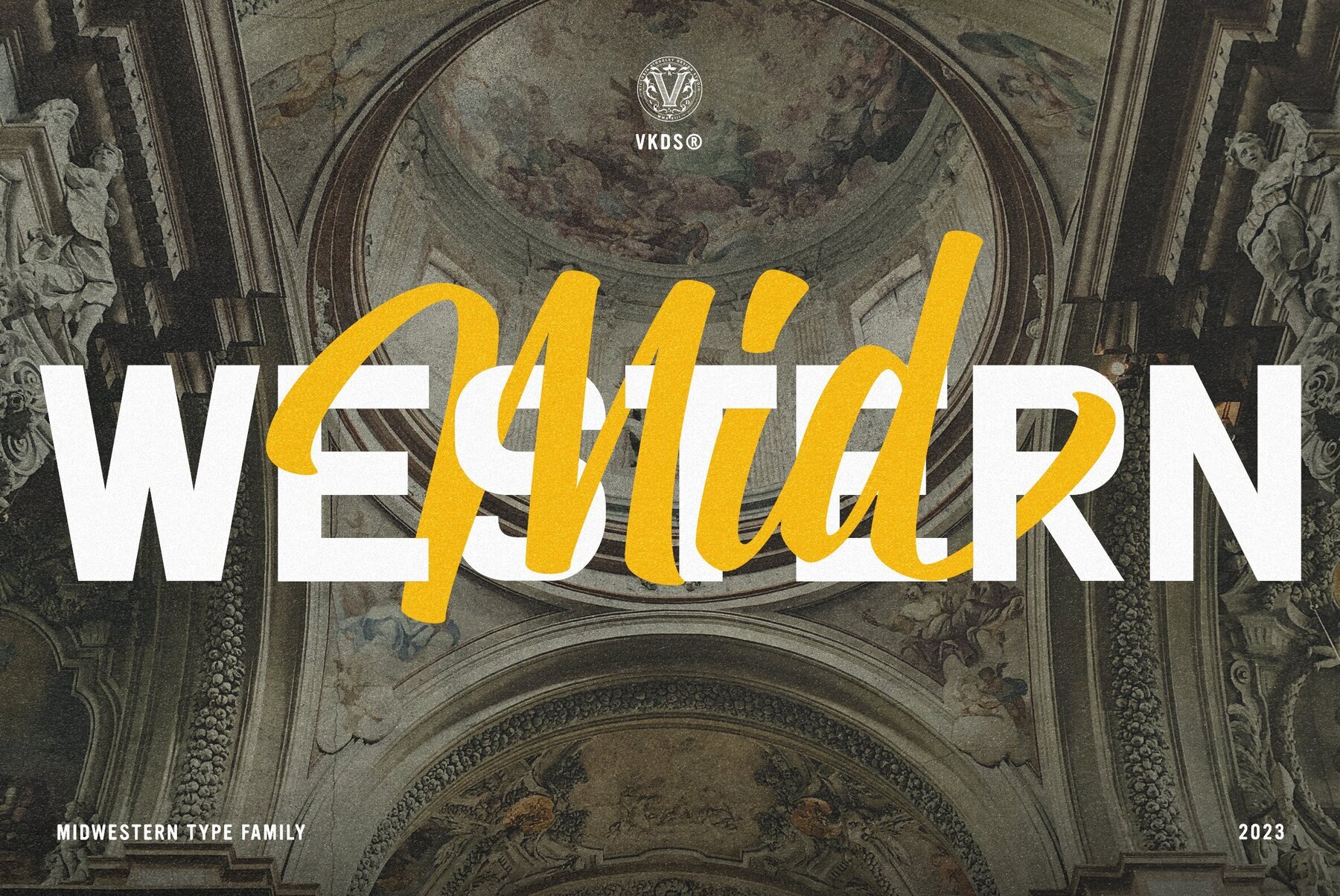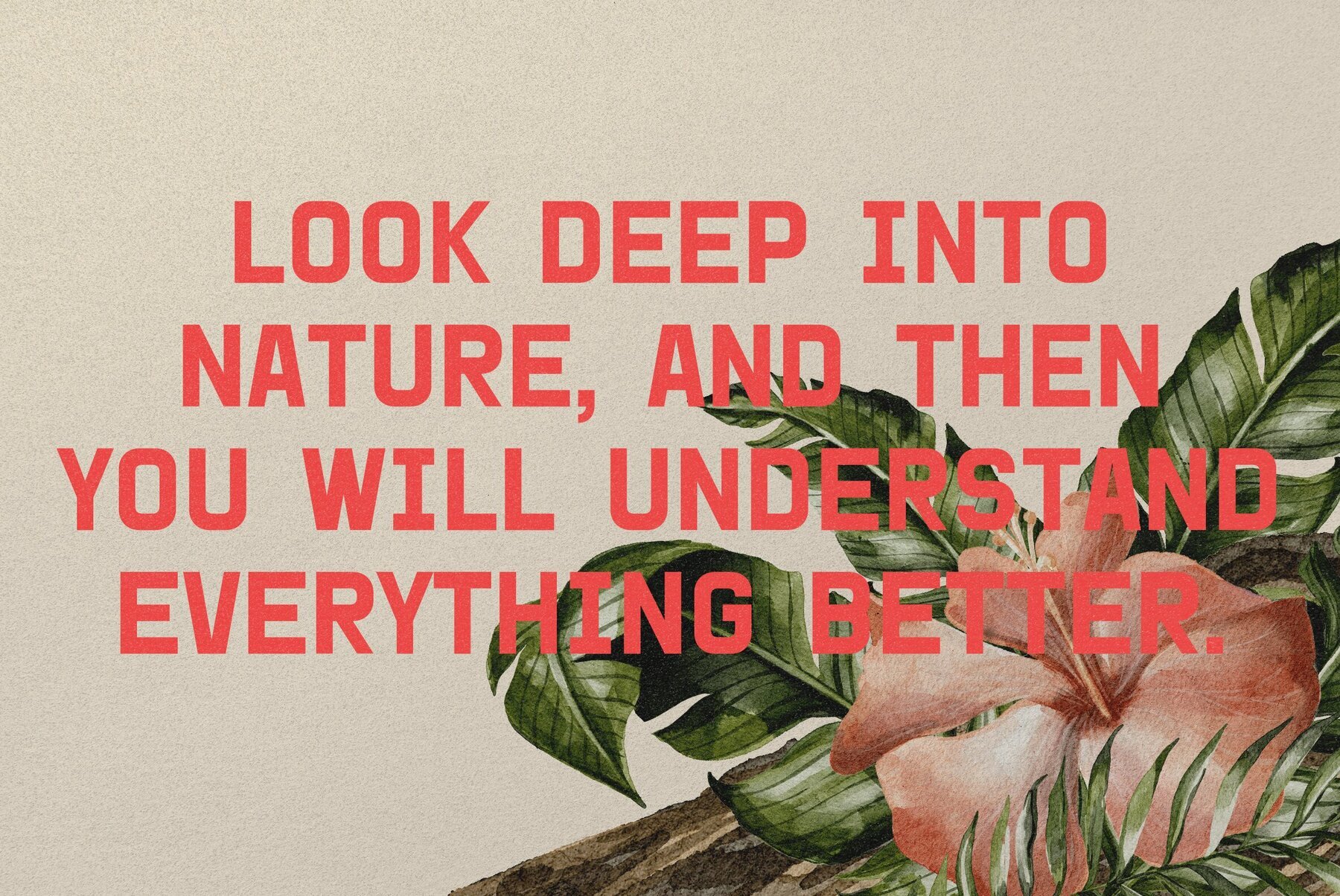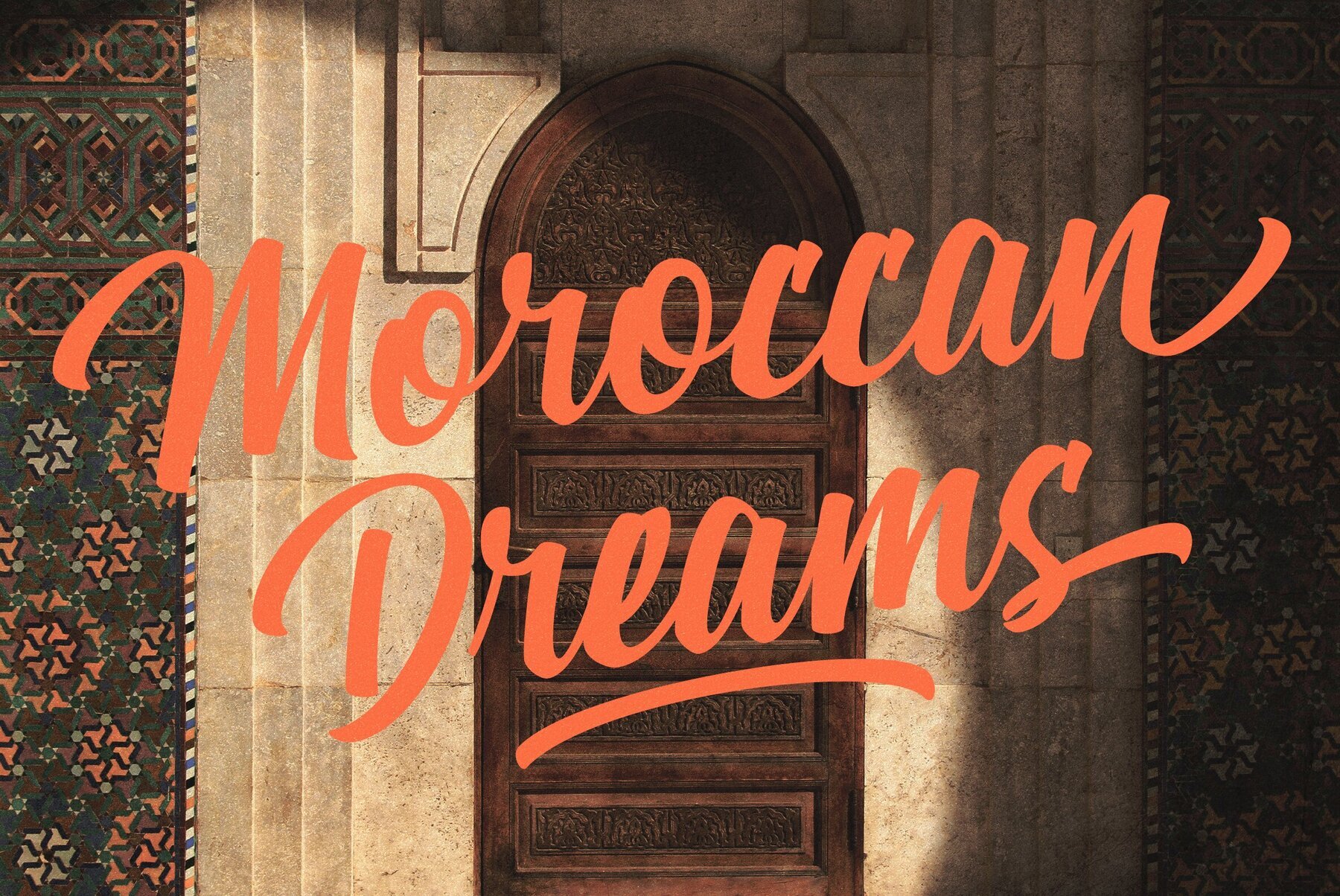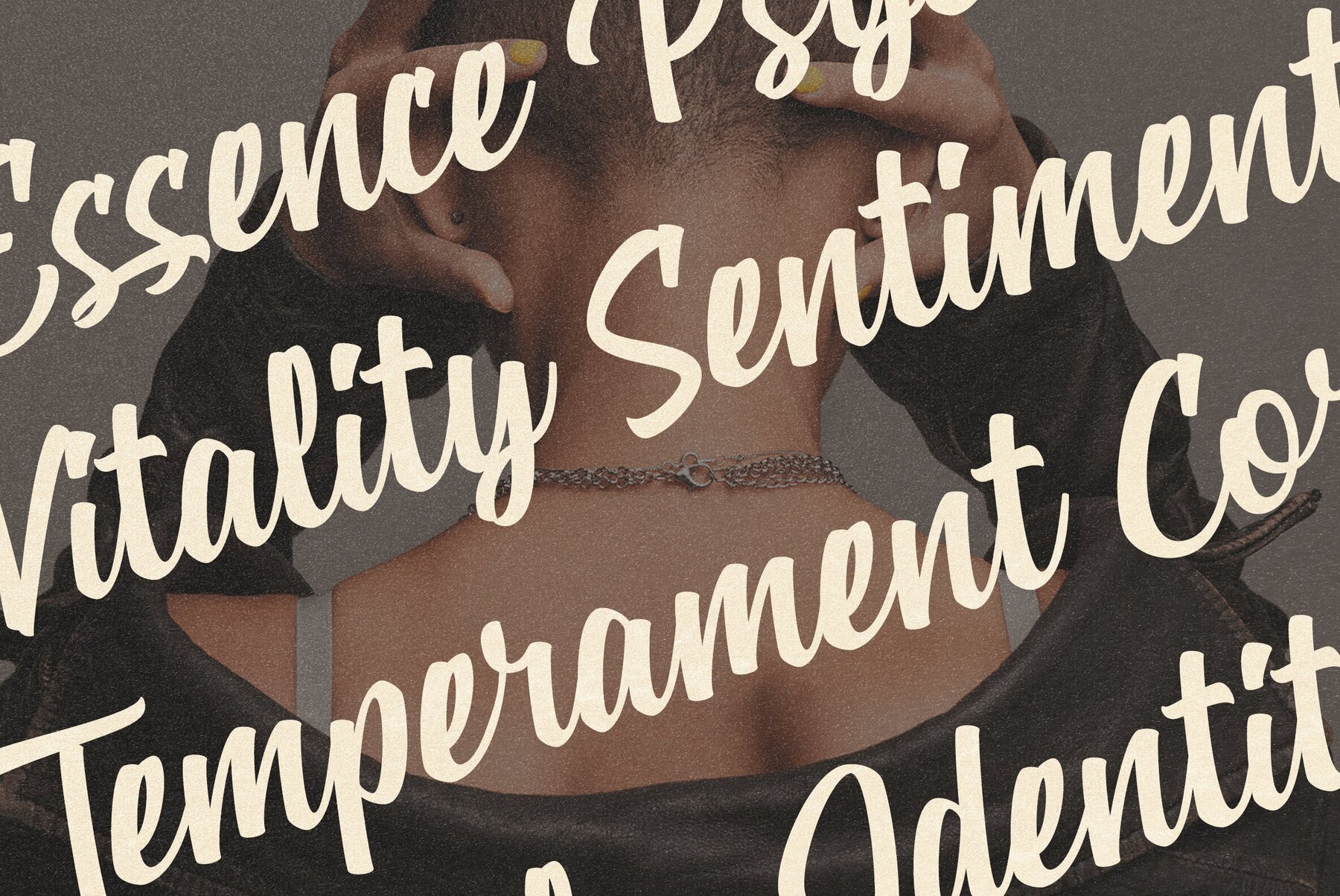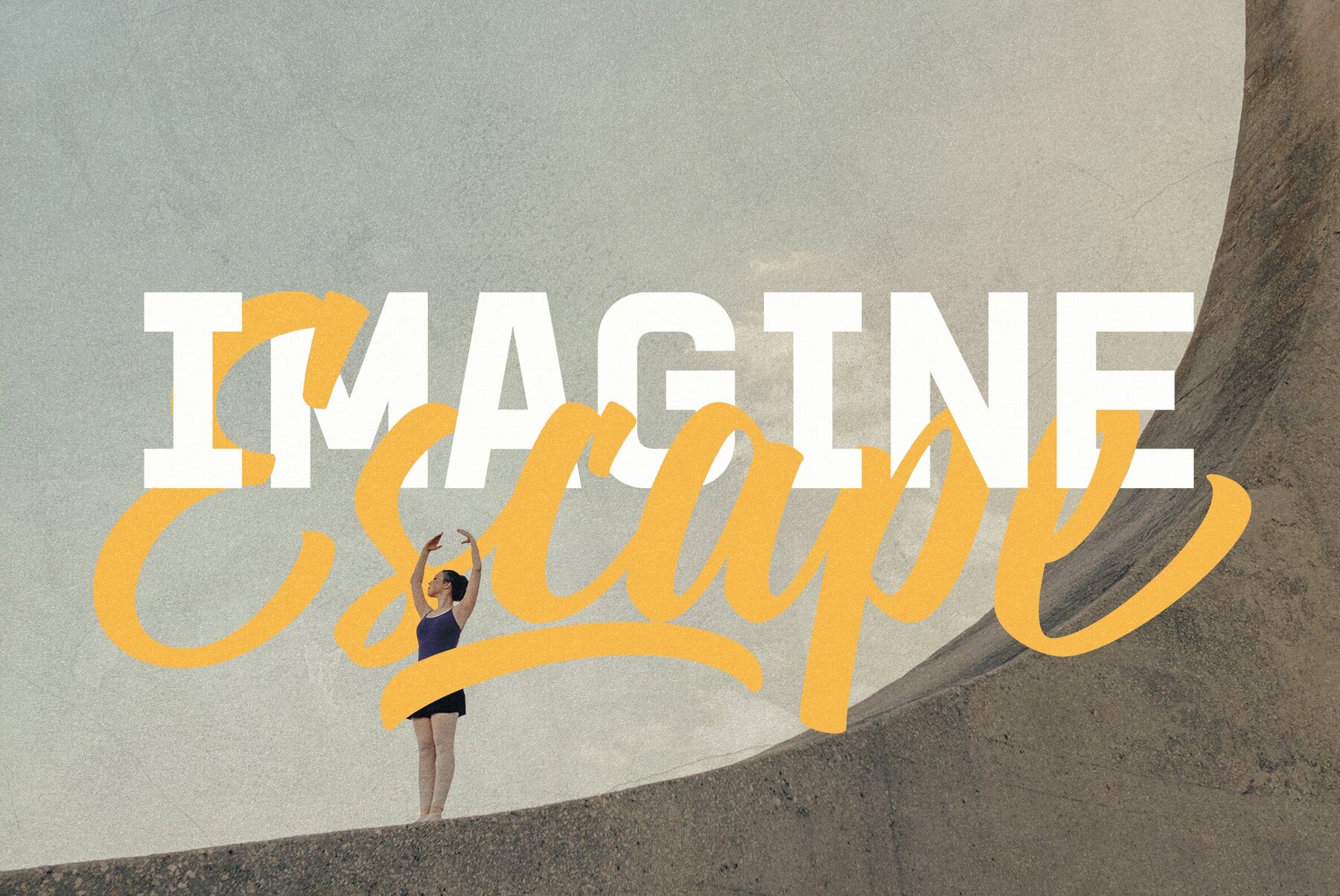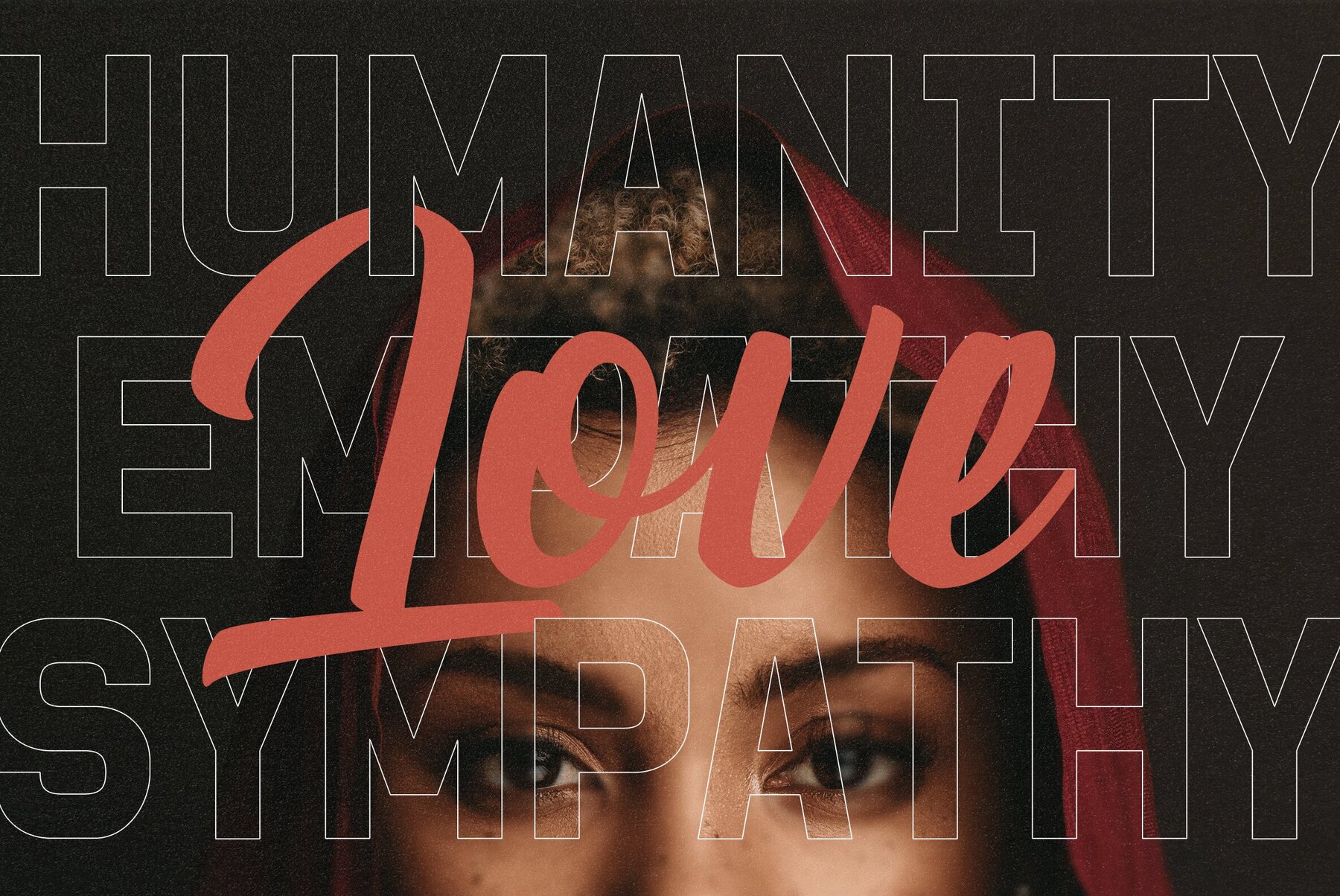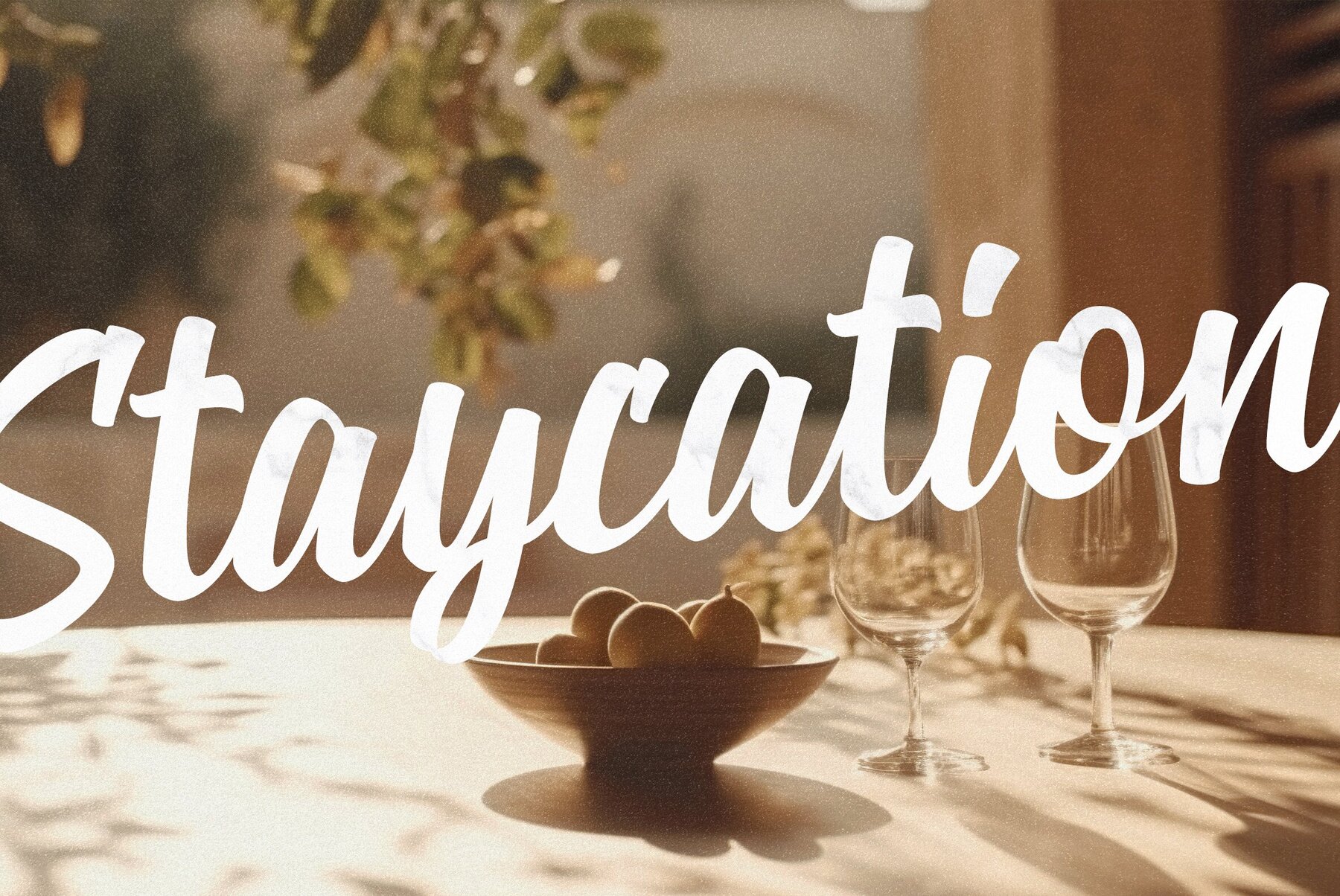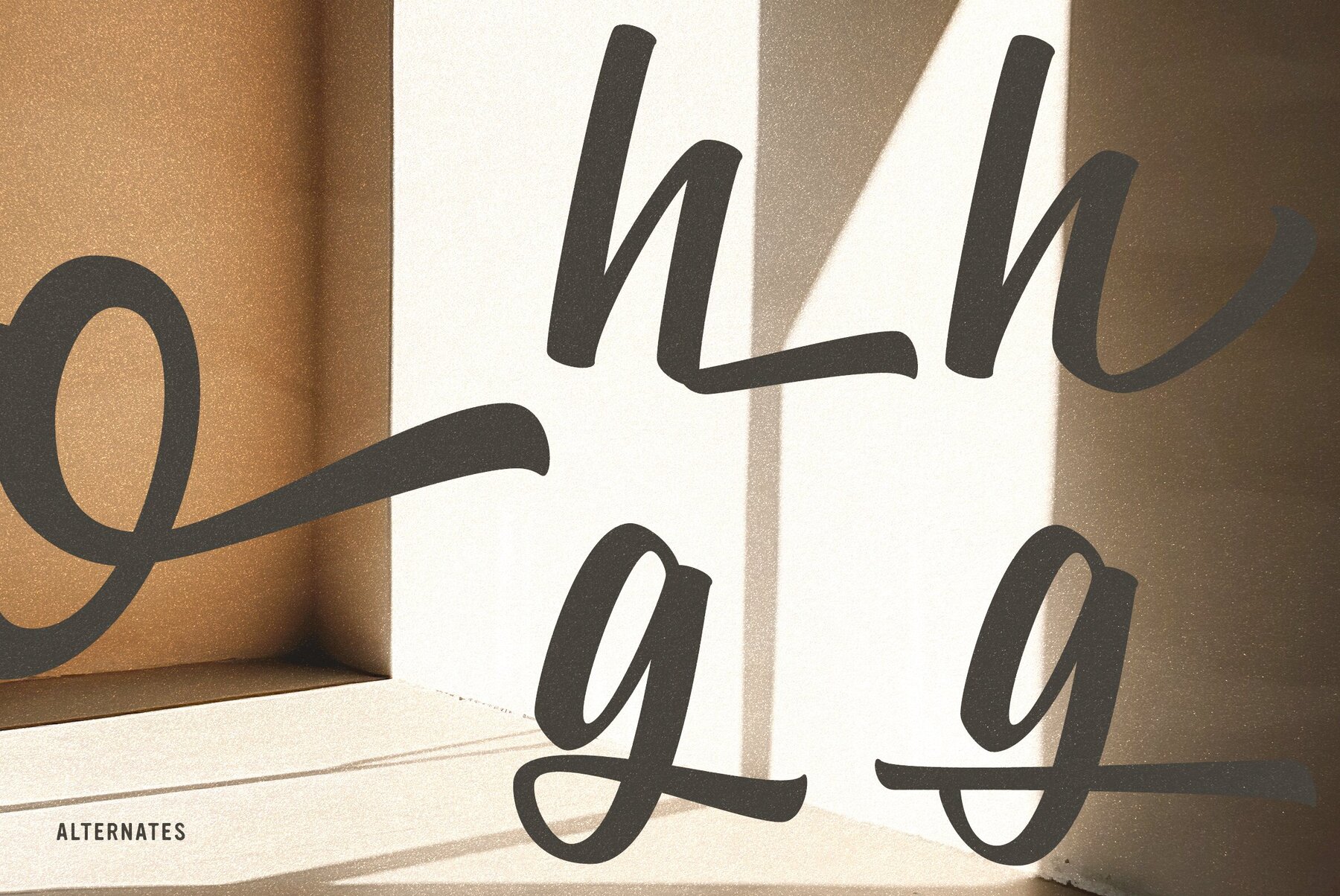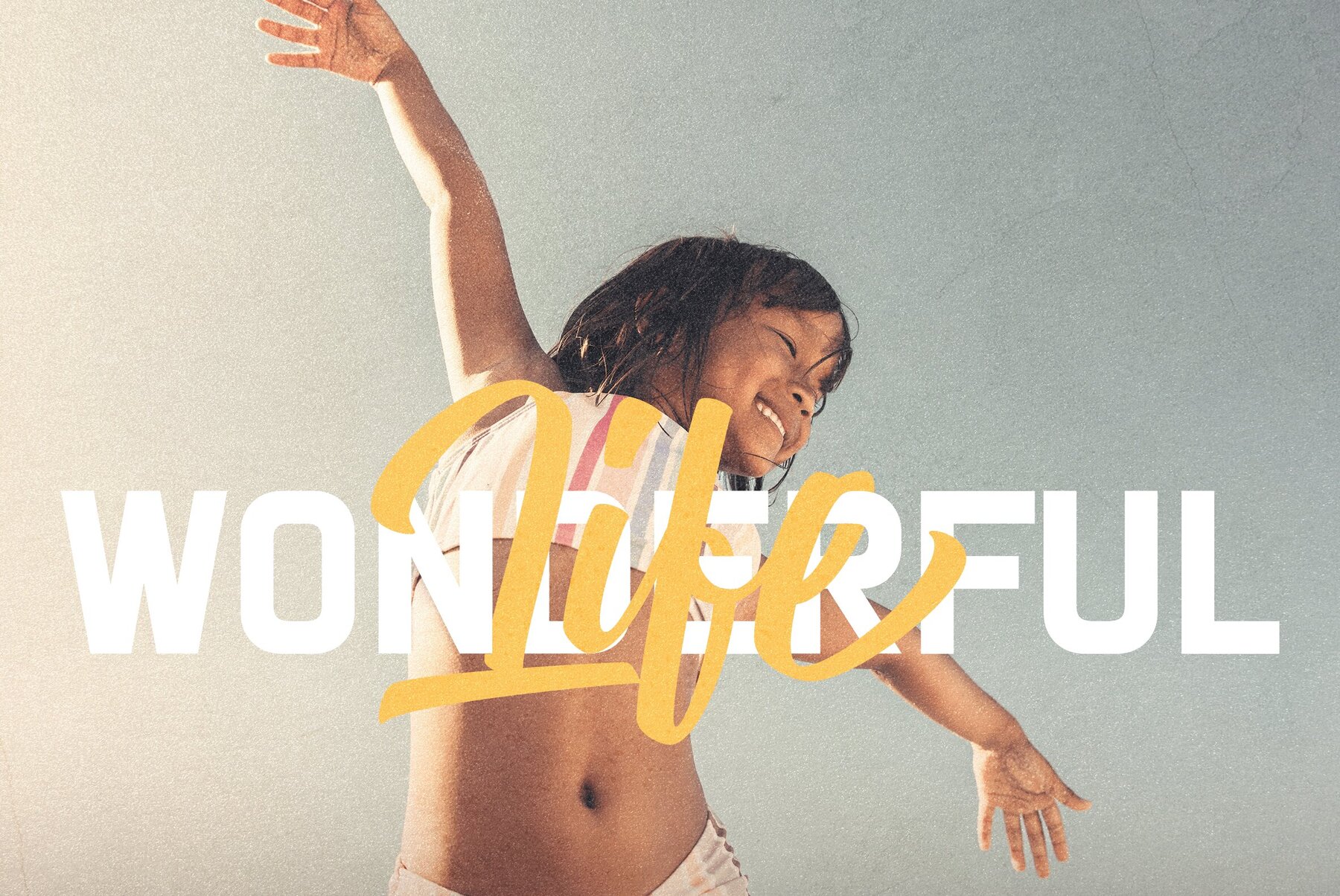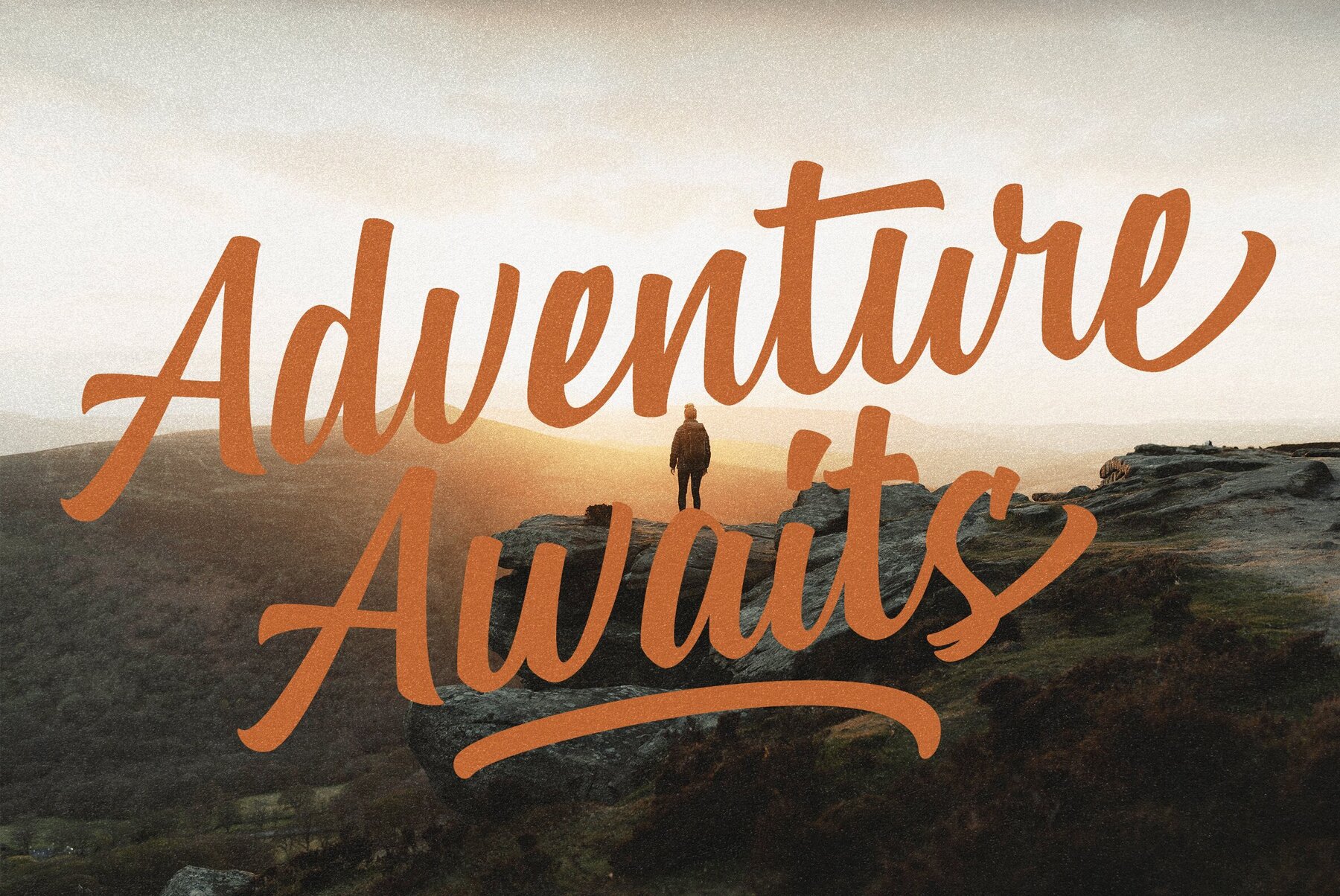
Midwestern Font
Introducing a captivating font duo by Victoria Kingsley, skillfully combining a masculine, athletic-style sans-serif font (all caps only) with a retro 1970s-inspired script design. The duo is further enhanced by a bonus swash-style font, perfect for adding an extra touch of flair to the script font settings. This versatile pairing is tailor-made for Instagram story titles, film titles, product packaging designs, and a myriad of other creative applications. Both font options boast over 400 glyphs, ensuring a comprehensive range of possibilities for your projects. Available for effortless personal and commercial licensing, this YouWorkForThem exclusive font duo is set to become an indispensable part of your design toolkit, infusing your creations with a unique and striking aesthetic.